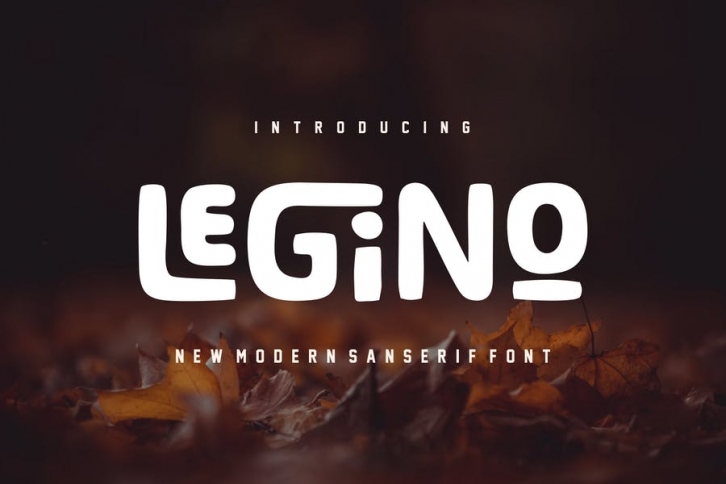
Introducing our new product Legino Font - Modern Font
Legino Font - Modern Font is a bold and authentic display font. The font is suitable for any branding project like logo, t-shirt printing, esport, and many more. outstanding in a wide range of contexts.